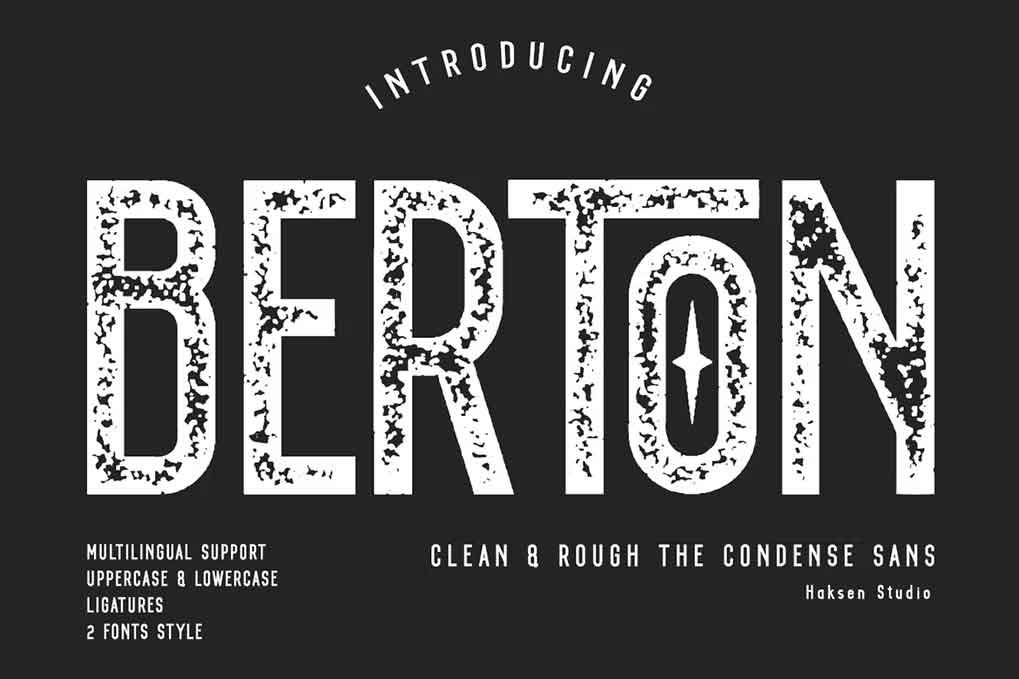
BERTON Font
Introducing, BERTON – A condensed display typeface. The condensed style make this font looks great and standout for tittle, headline, logo, etc. There are 2 styles, regular and rough/stamp. Perfectly to be applied to the other various formal forms such as invitations, labels, logos, magazines, books, greeting / wedding cards, packaging, fashion, make up, stationery, novels, labels or any type of advertising purpose.
Where BERTON Font works best
BERTON Font keeps its shape at 14 and 16 pixels, which is where interface text actually lives. Numbers and capitals stay distinguishable in tables.
Presentations are read at a distance; a clean sans with a strong bold is the safest hierarchy you can build in a hurry.
Simple letterforms survive angles, glare and movement, so BERTON Font suits door signs, menus boards and exhibition panels.
What kind of work does BERTON Font suit?
It sits in the Sans Serif Fonts group and reads as branding, condensed, display, formal. That makes it a candidate wherever those qualities help: headings, packaging, social graphics and brand work. Set it at the size you plan to use before deciding.